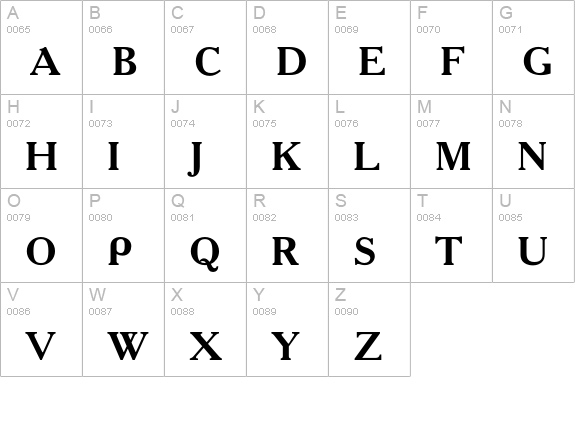
PM Academy Bold Cyrillic is a strong, high-contrast variant in the PM typeface family \xE2\x80\x94 well suited to headlines, attention-grabbing titles, and strong calls-to-action.
Introducing PM Academy Bold Cyrillic font - a powerful and dynamic typeface that exudes confidence and sophistication. With its bold strokes and sleek design, this font is perfect for making a statement in your projects. Whether you're working on a branding campaign, poster design, or website layout, PM Academy Bold Cyrillic font will elevate your work to the next level. What's even better is that this font is completely free to download at FontsMarket.com. Yes, you read that right - you can get your hands on this premium font without spending a dime. So why wait? Add PM Academy Bold Cyrillic font to your font library today and watch your designs come to life with style and flair.